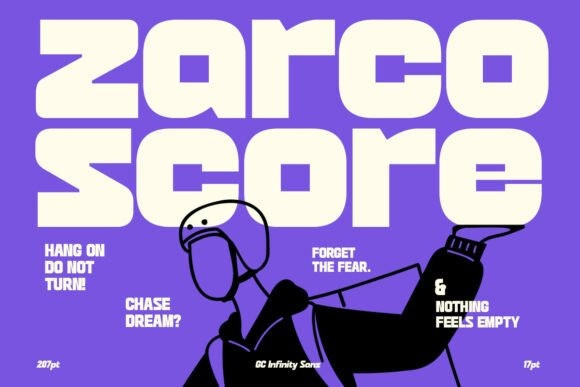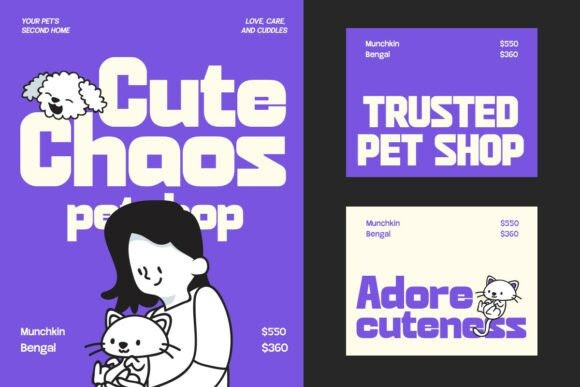
Gc Infinity Sans Font
Gc Infinity Sans Font is a bold display sans-serif font that combines striking modernism with a strong geometric structure. Designed to command attention, it blends boldness and clarity, making it ideal for impactful headlines, statement branding, logo design, editorial titles, and bold packaging. With its thick, solid letterforms, minimal contrast, and clean curves, Infinity delivers a sense of power and simplicity in one unified design. The characters are carefully spaced and constructed to give a sense of balance and visual strength—perfect for tech, sports, urban, and fashion-related visuals.